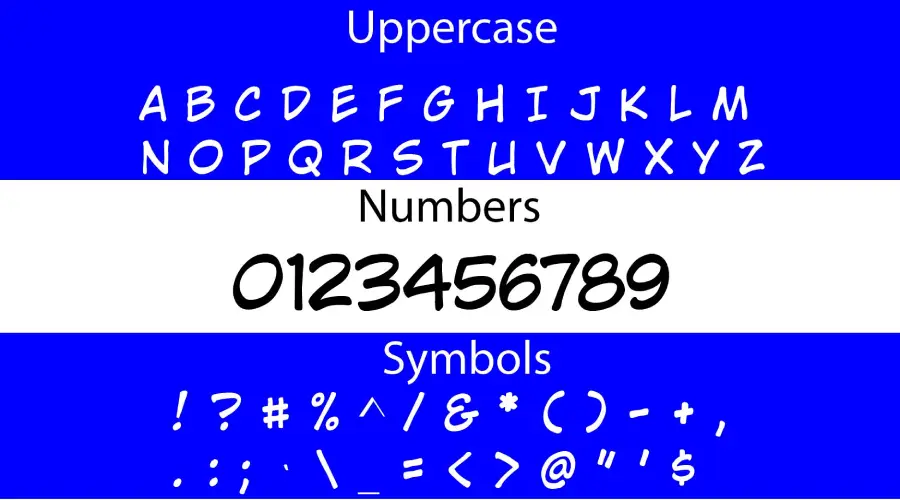
Wild Words Font
Wild Words font is a bold and energetic typeface designed and published by John Roshell, a comic book letterer and font designer who co-founded Comicraft. Comicraft is a font foundry specializing in comic book fonts. It is designed to be eye-catching and attention-grabbing, making it ideal for logos, headlines, posters, and other projects that need a handwriting feel.
Wild Words font was first used in 1995 for the comic book series WildC.A.T.s, written by Lee and drawn by various artists. The font quickly became popular among comic book fans and creators and was used for other Wildstorm titles, such as Gen, Stormwatch, and The Authority.
CC Wild Words font is a variant of Wild Words created by Comicraft. CC Wild Words shares some features and styles with Wild Words but has some differences. They have different letter shapes. Compared to Wild Words, CC Wild Words font has a more modern and less retro feel.